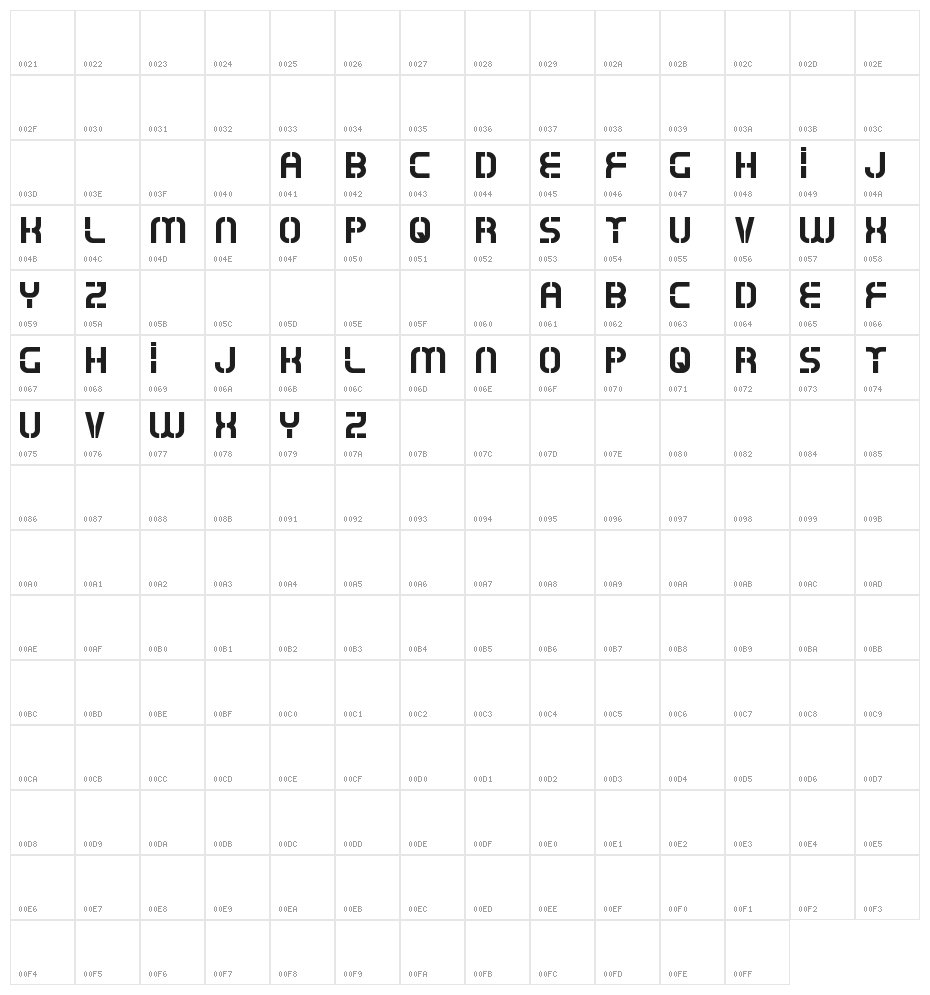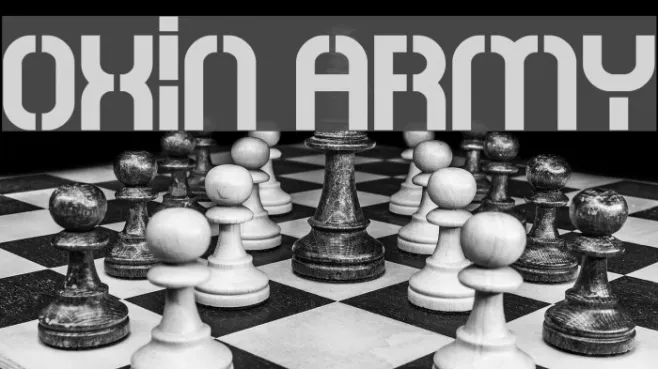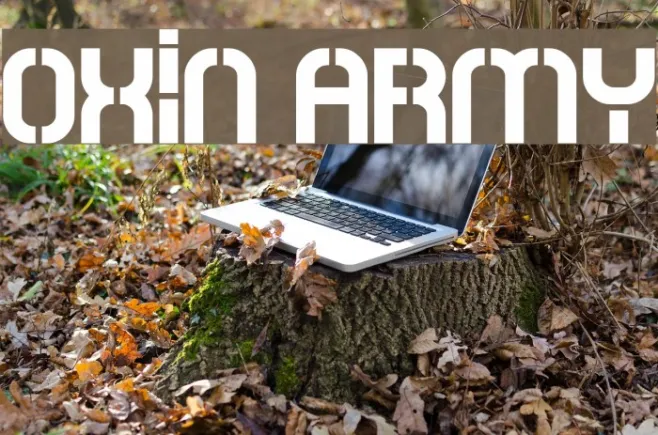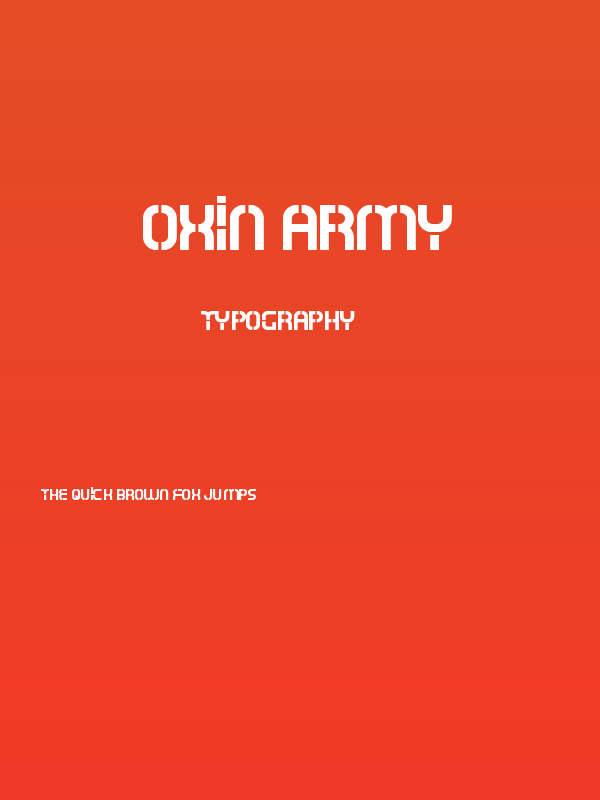
Oxin Army Font
Oxin Army Description
This font features a bold, geometric design with a military-inspired aesthetic. The characters are constructed with clean, angular lines and a blocky structure, giving it a strong and commanding presence. The use of negative space within the letters adds a unique, stencil-like quality, enhancing its utilitarian feel. The uppercase letters are uniform in height, contributing to a cohesive and disciplined look. This font is ideal for projects that require a bold statement and a sense of authority.